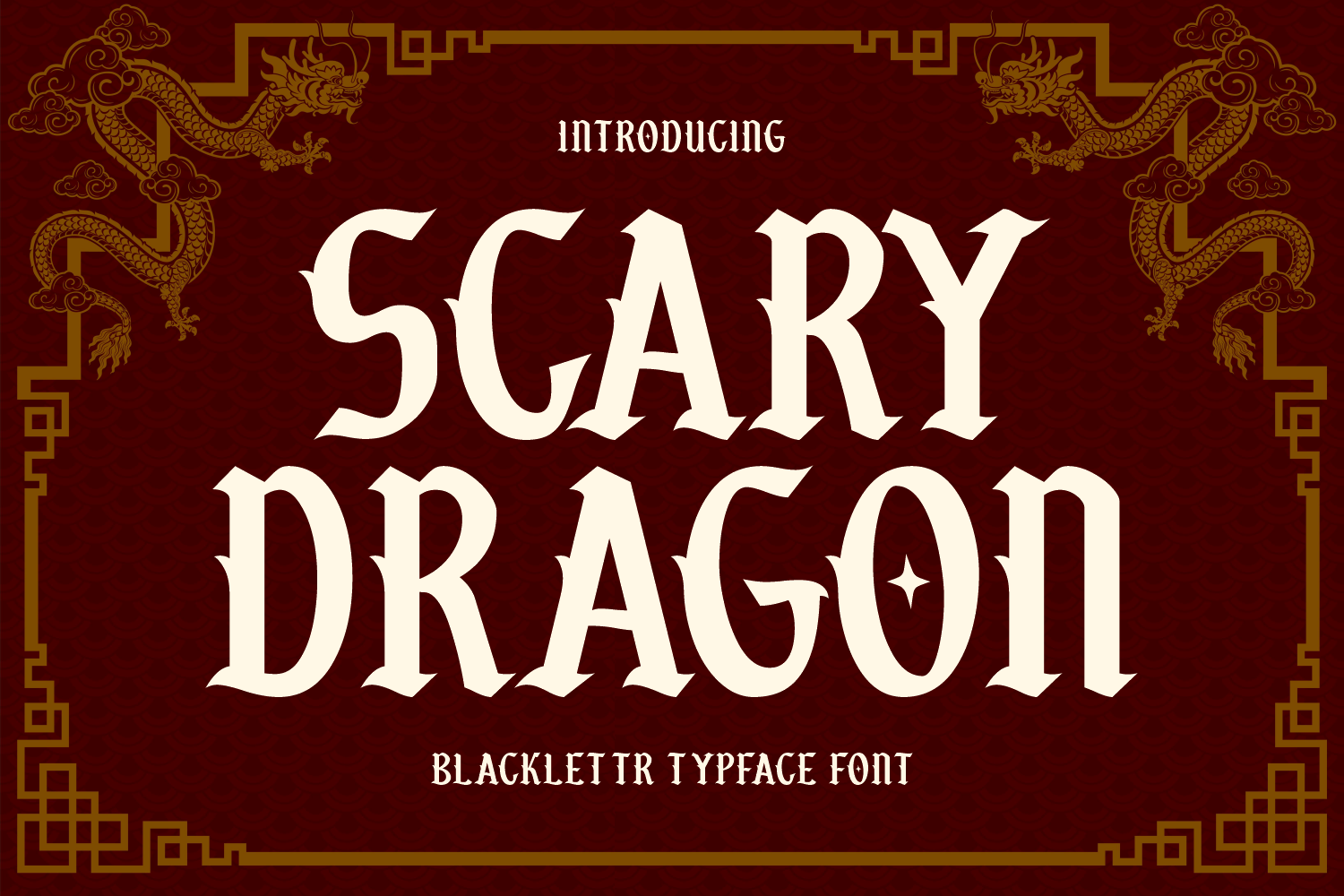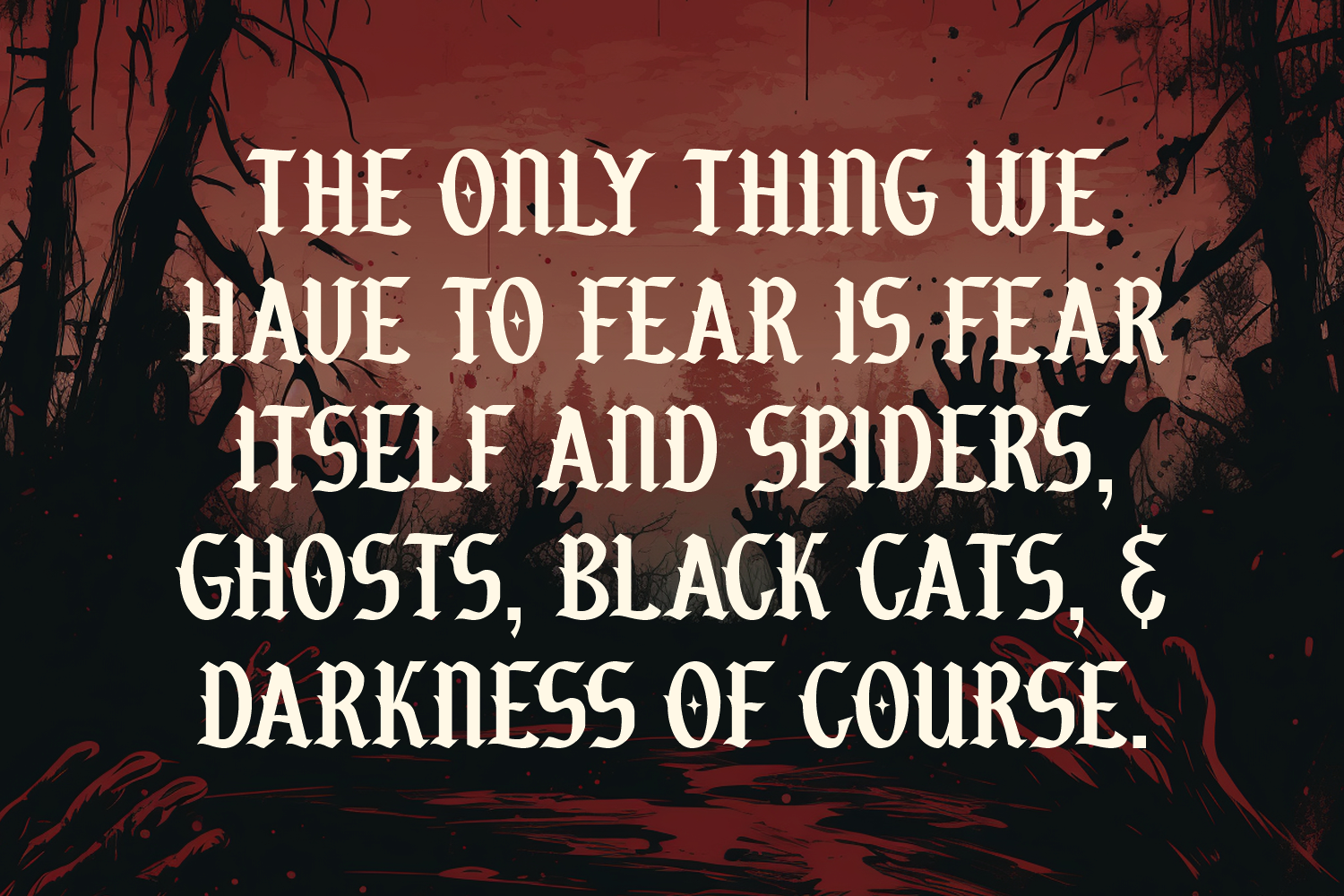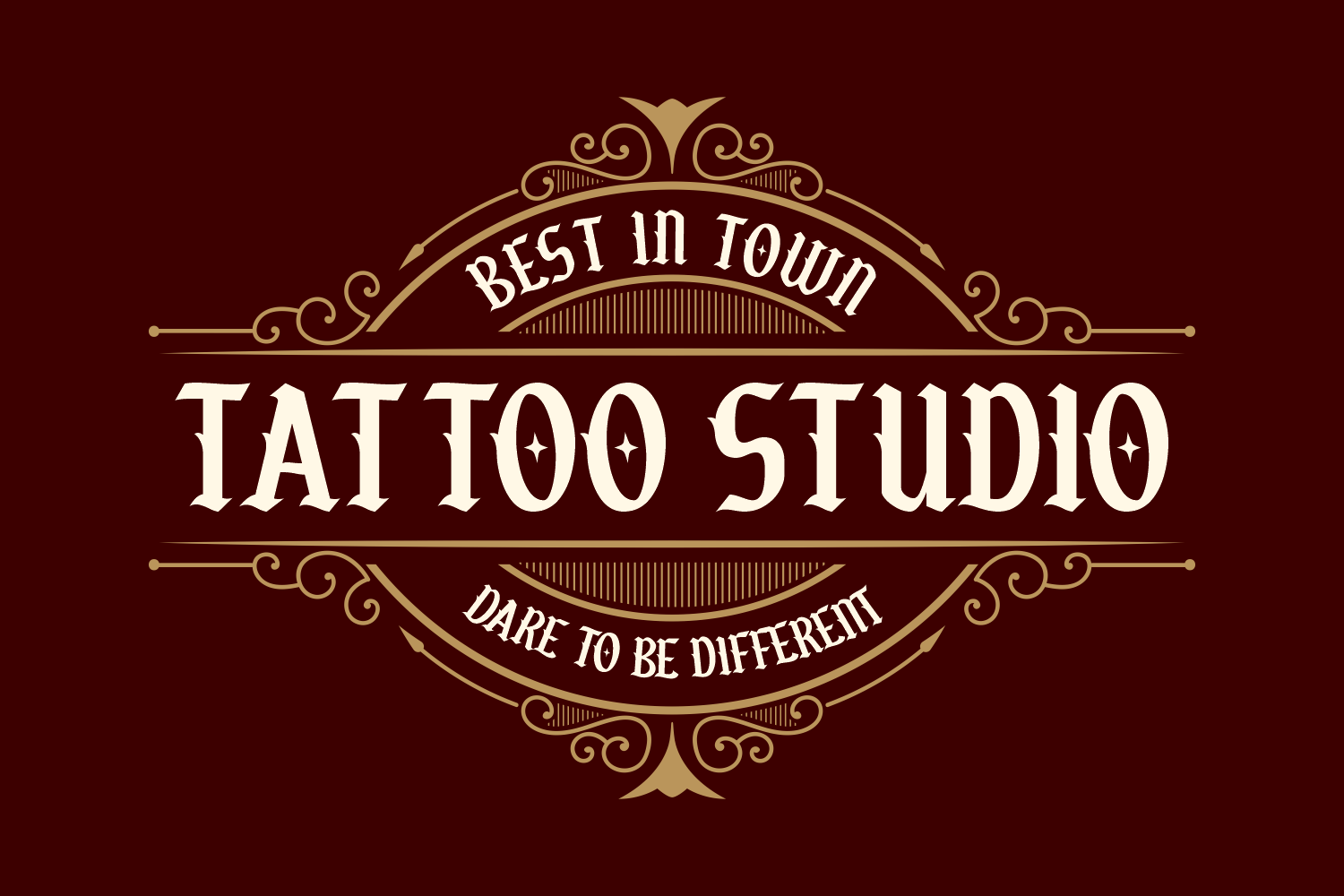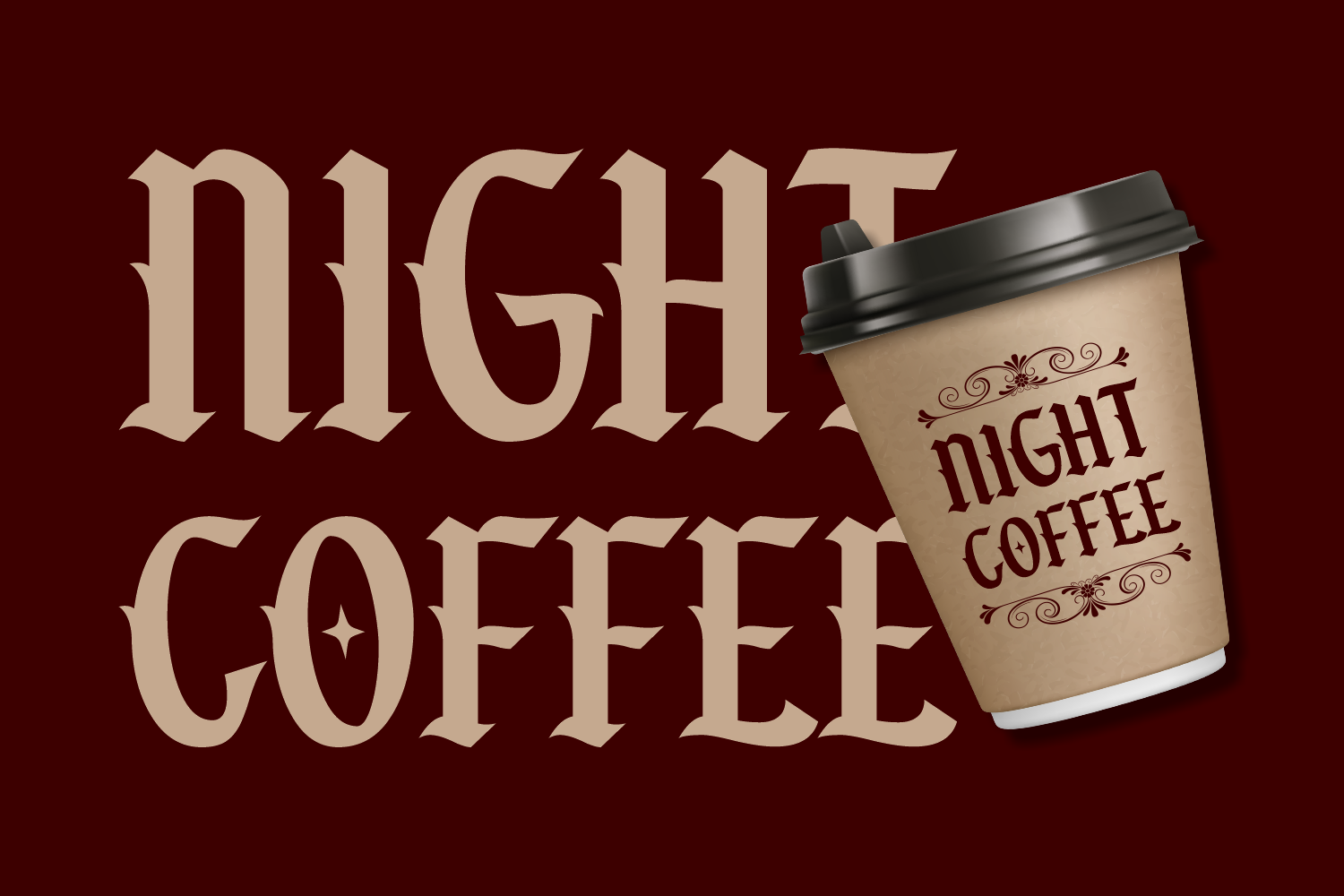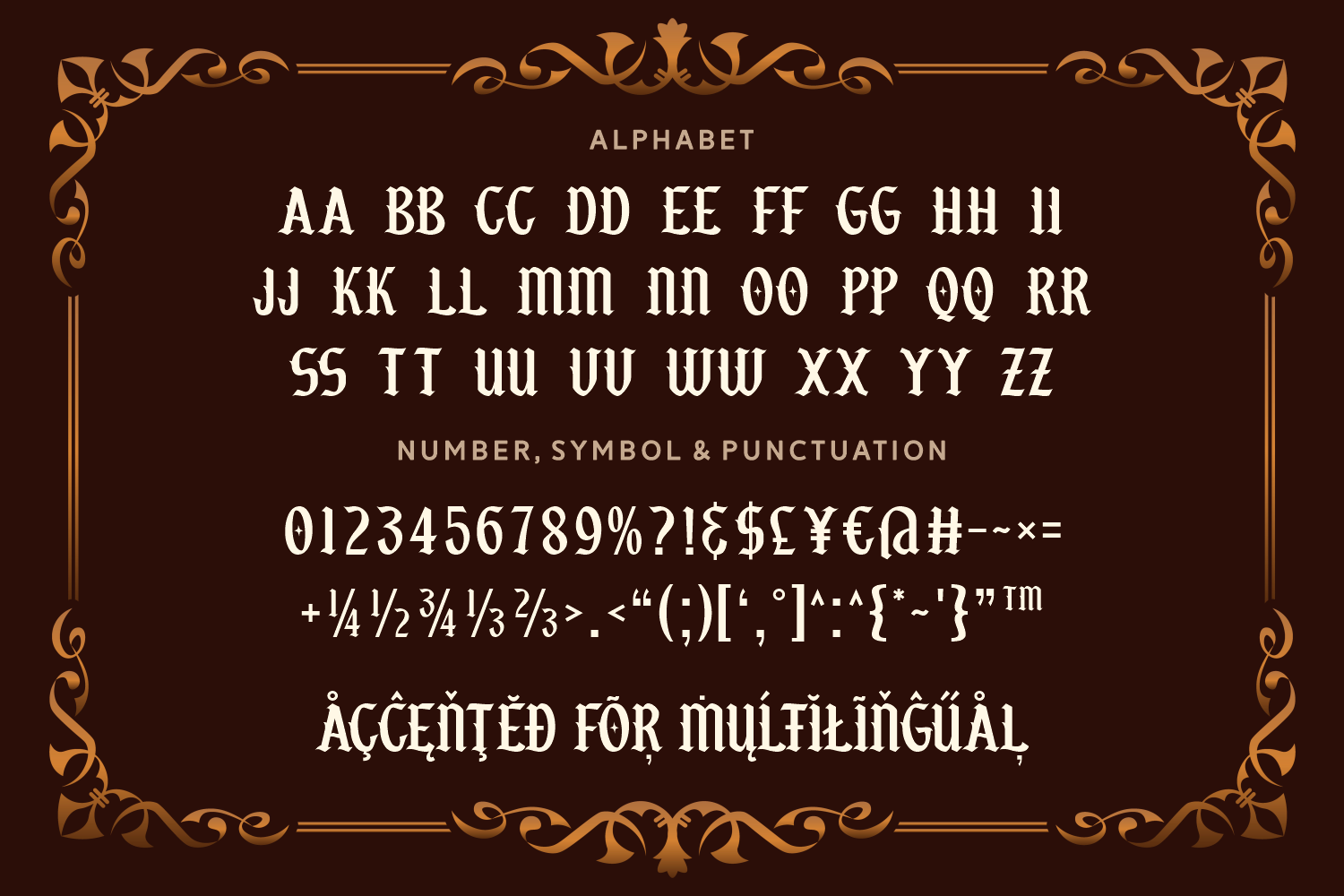
Scary Dragon is a blackletter font inspired by Eastern motifs, blending gothic strokes with dragon-themed elements. Perfect for fantasy titles, game logos, and themed posters.